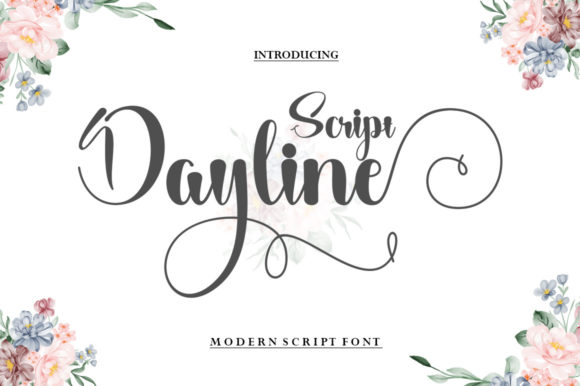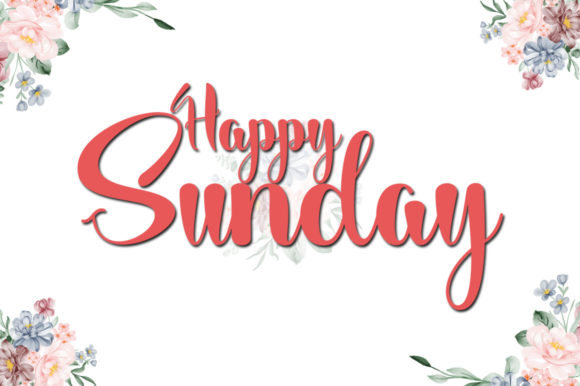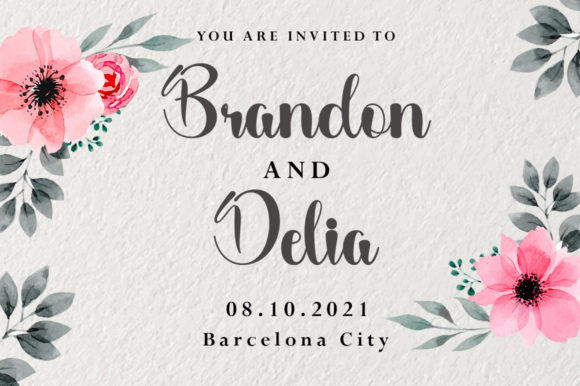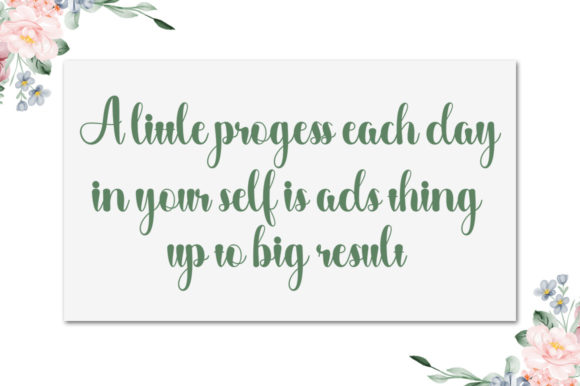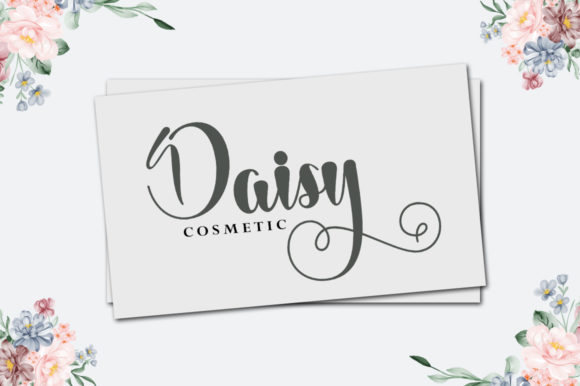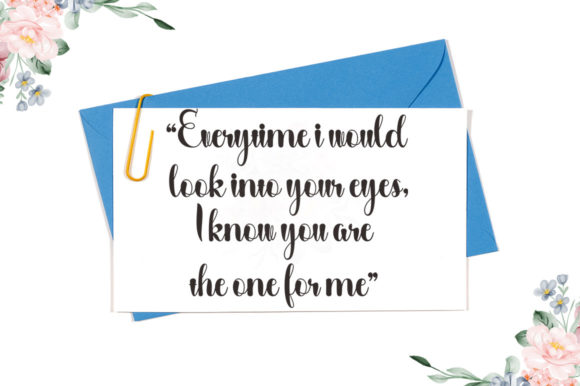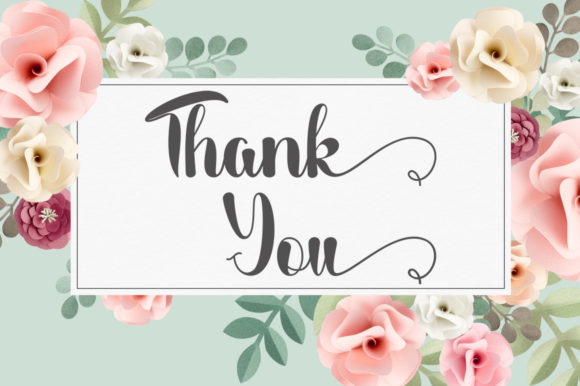
Dayline Script Font
About Dayline Script Font
Dayline Script is a dazzling and chic script font. It is PUA encoded which means you can access all of the glyphs and swashes with ease!